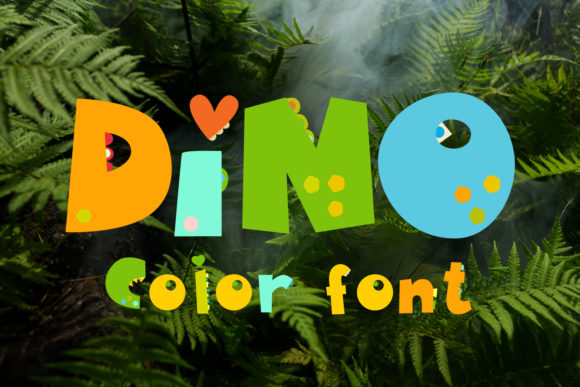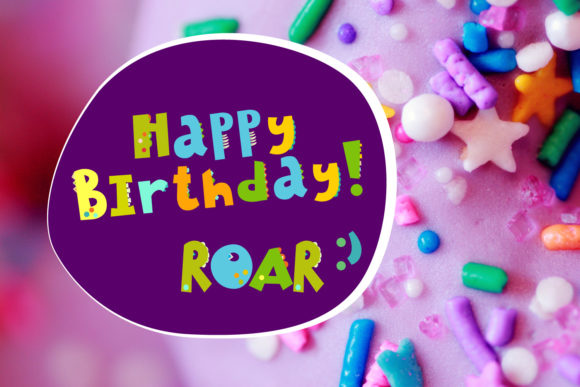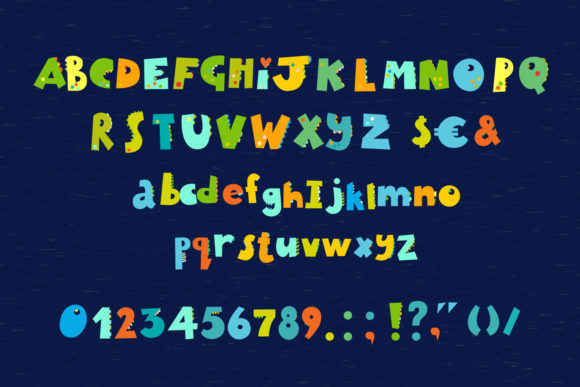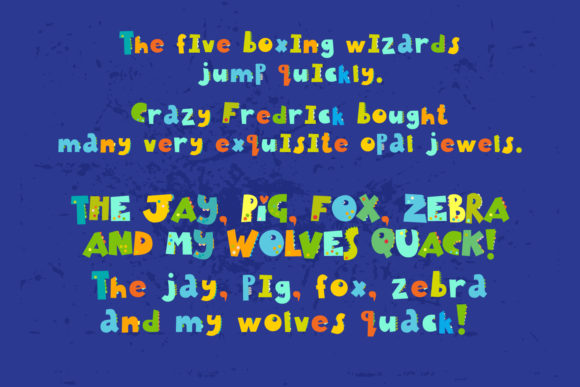
Dino Font
About the Dino Font
Elevate your designs with Dino Font, a font that combines sophistication with readability. Dino is an incredibly cute and thick lettered display font. It is perfect for children-themed designs, especially when combined with bright colors.
Dino’s playful, rounded forms make it ideal for children’s books, branding for toy companies, or playful packaging designs. It also works well in short headlines for projects targeting a young audience. However, its thickness and large x-height make it unsuitable for body text or UI elements where readability is paramount. Avoid using it in long paragraphs or small sizes.
Pairing Dino with a clean sans-serif like Open Sans for body text creates a strong visual contrast and maintains readability. For a more sophisticated feel, consider pairing it with a delicate script font for secondary text elements, such as subheadings. A geometric sans-serif could also offer a modern counterpoint.
Dino’s overall personality is undeniably cheerful and friendly, conveying a sense of fun and approachability. This makes it a strong choice for brands aiming for a youthful and playful image.
Dino Font Example